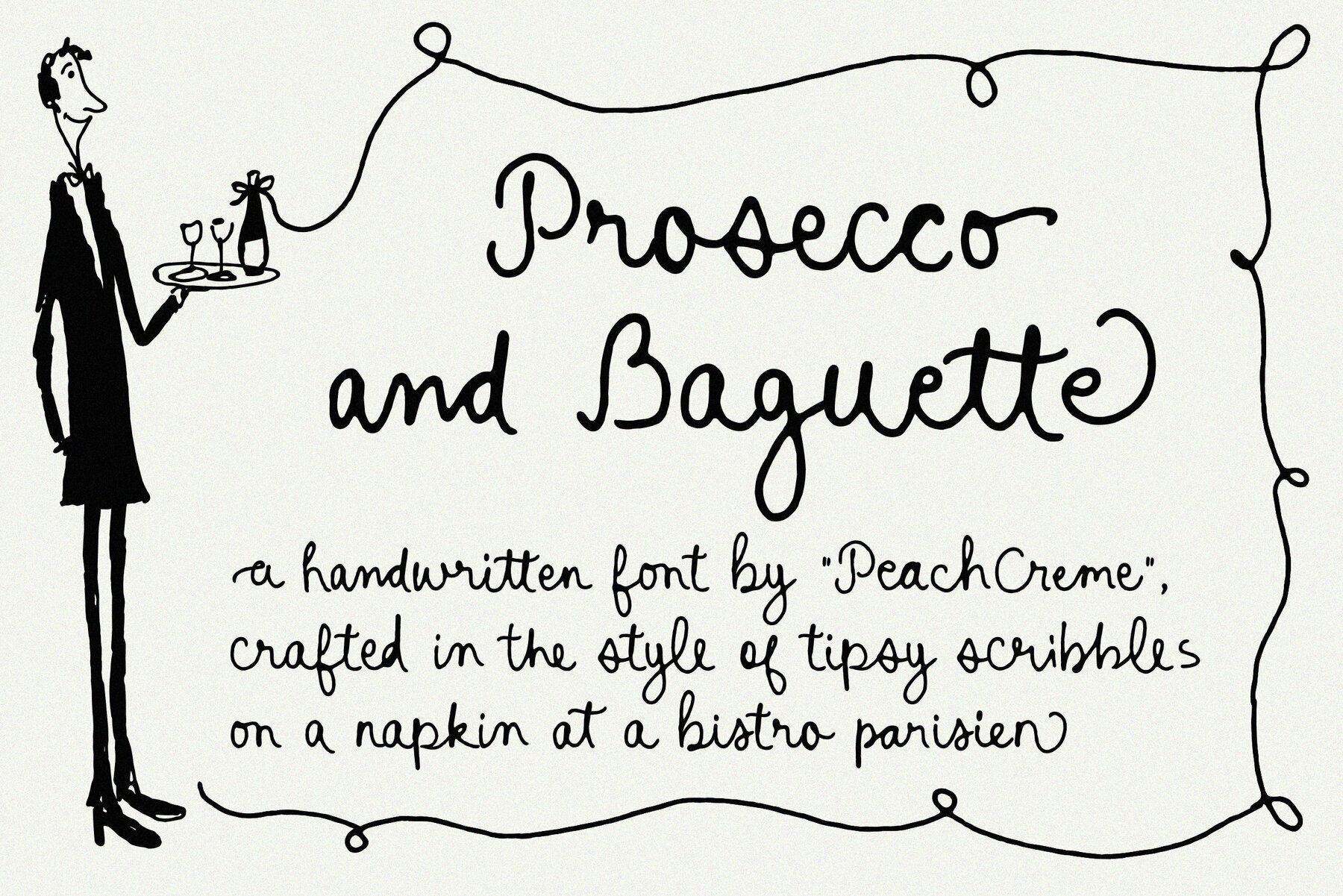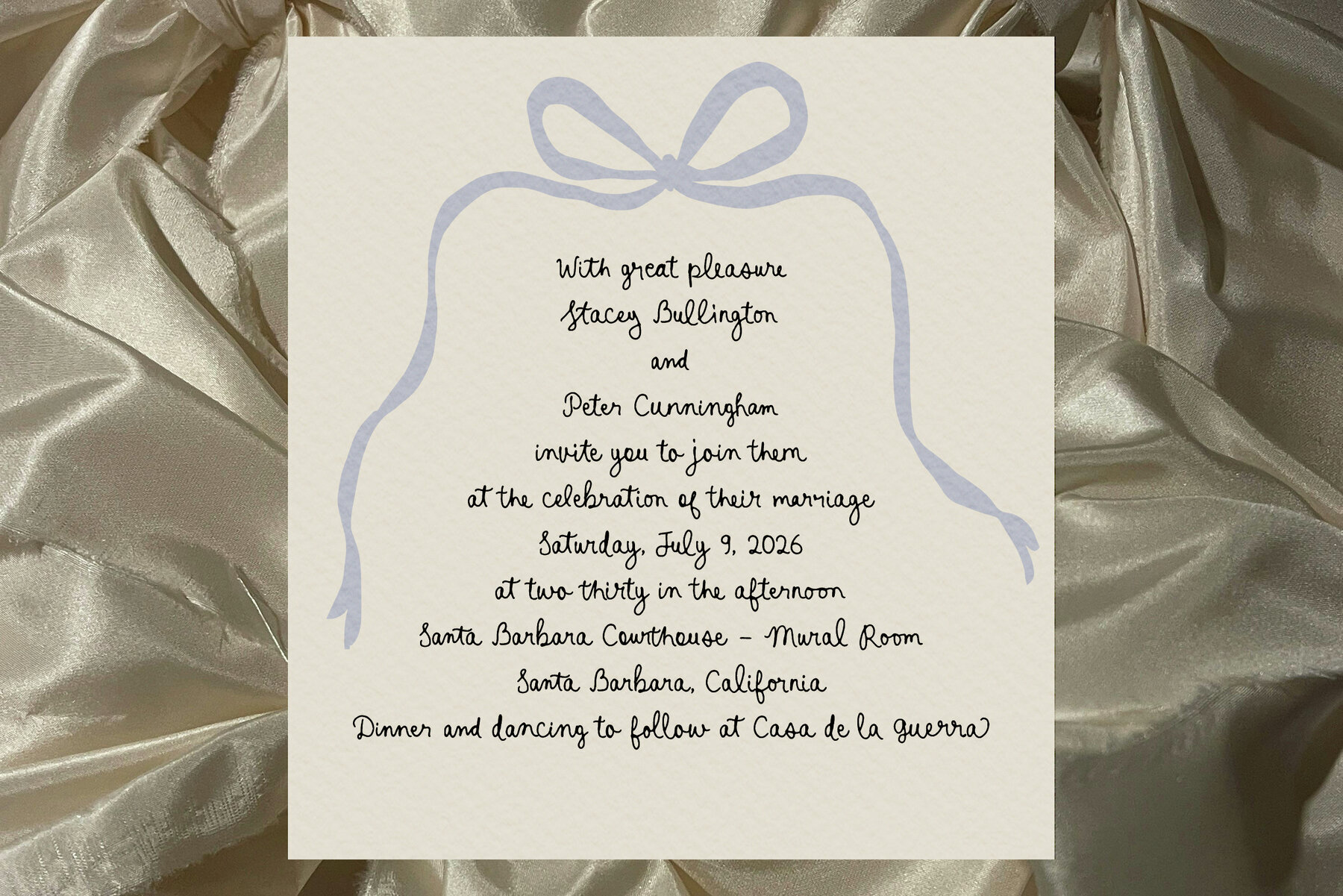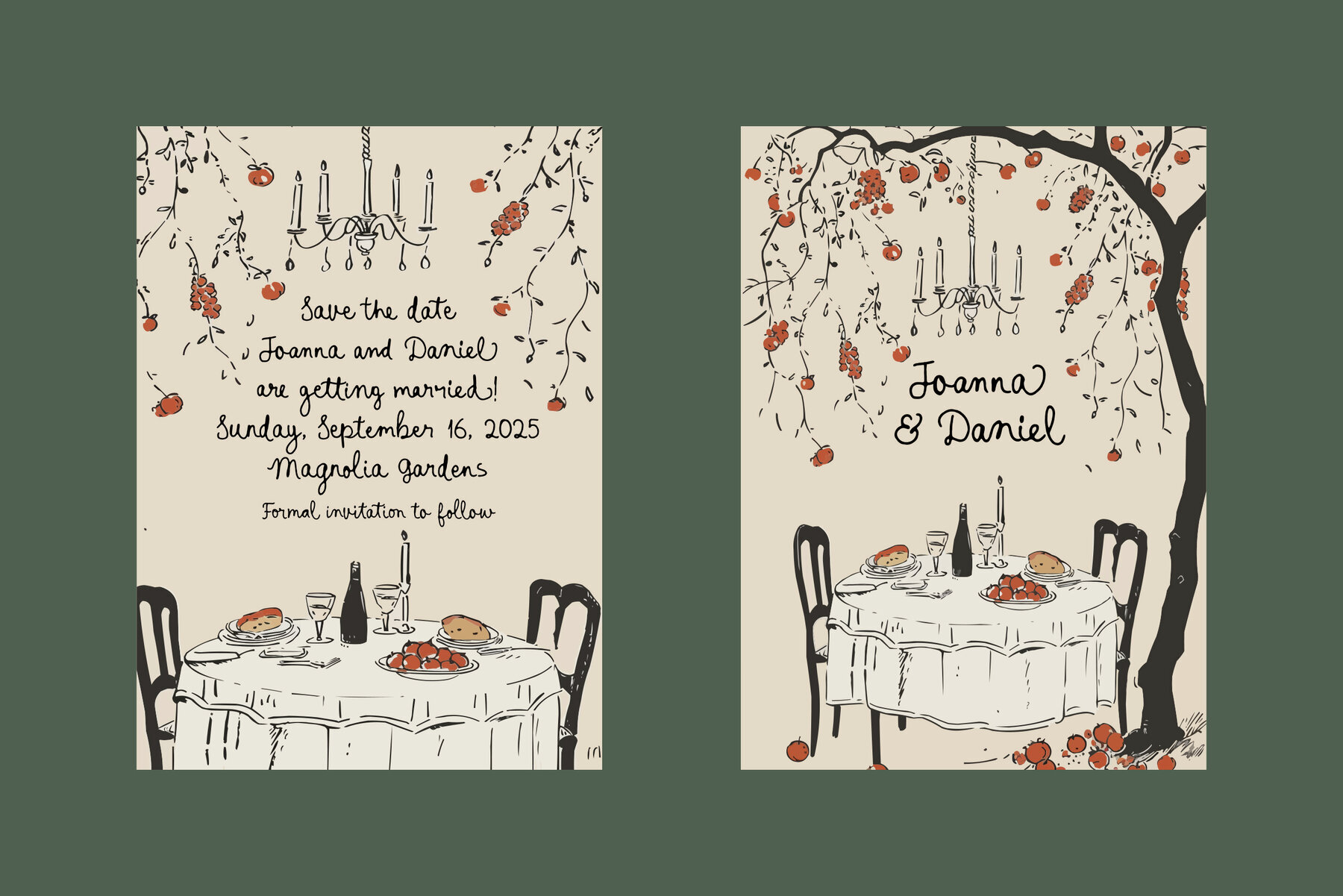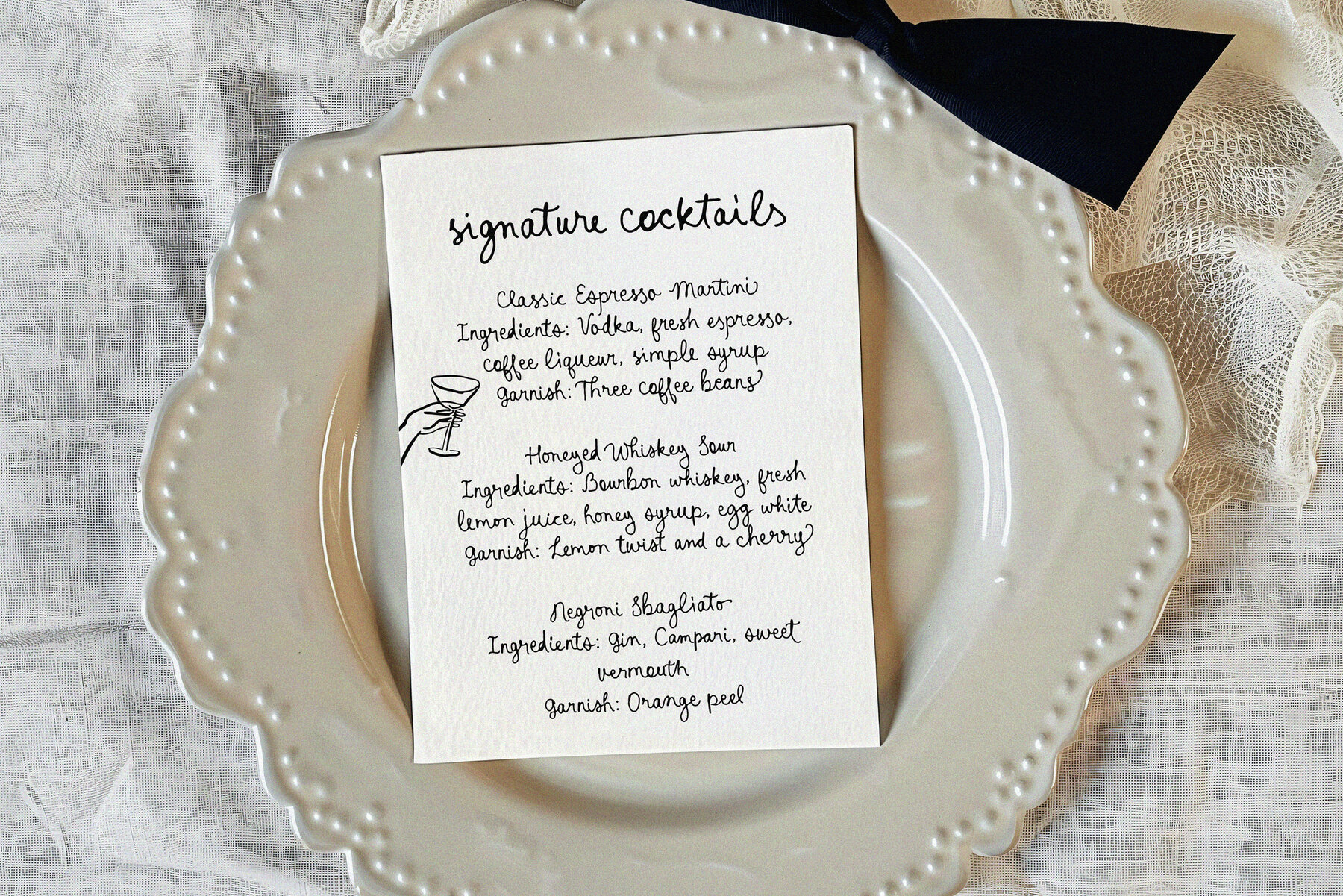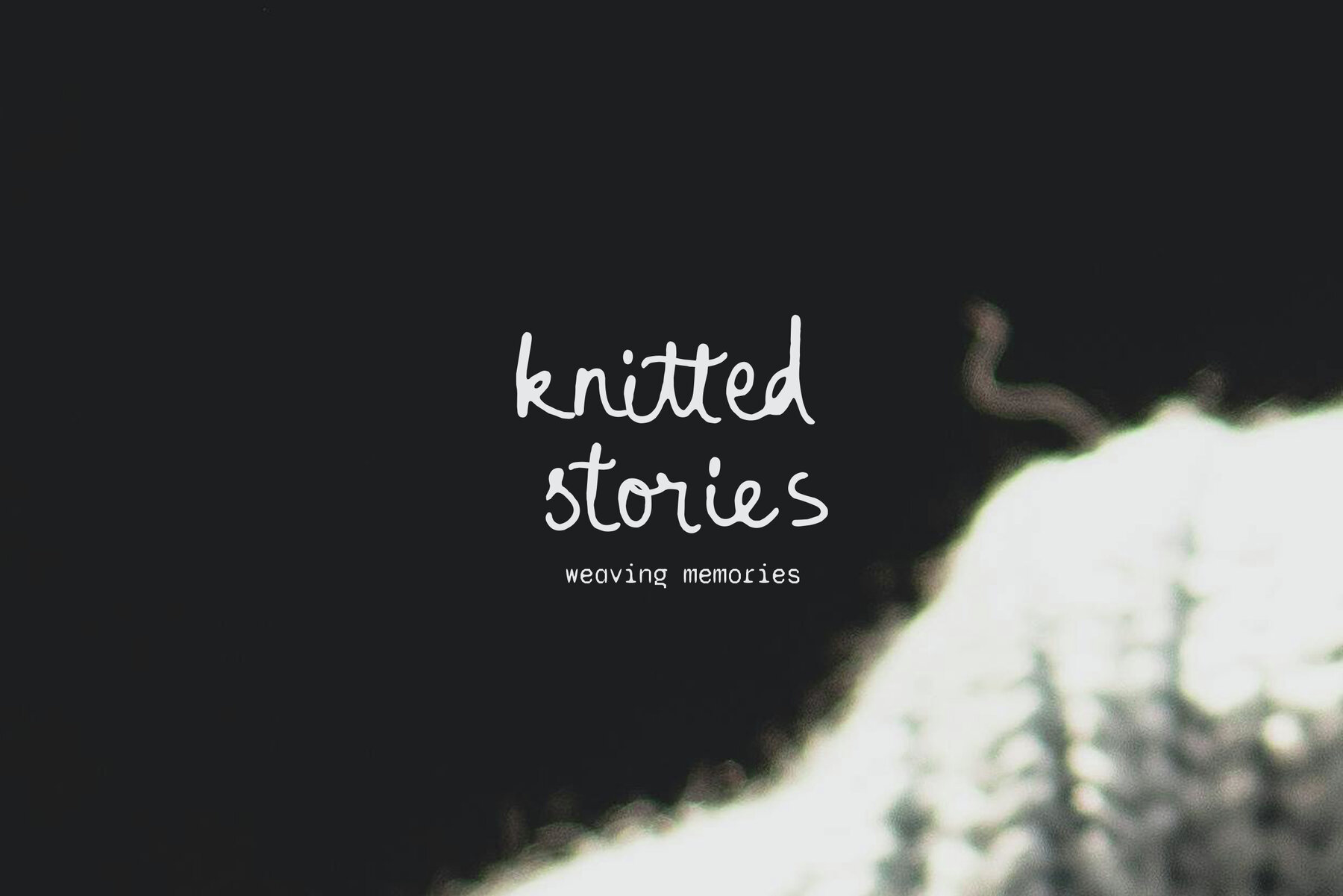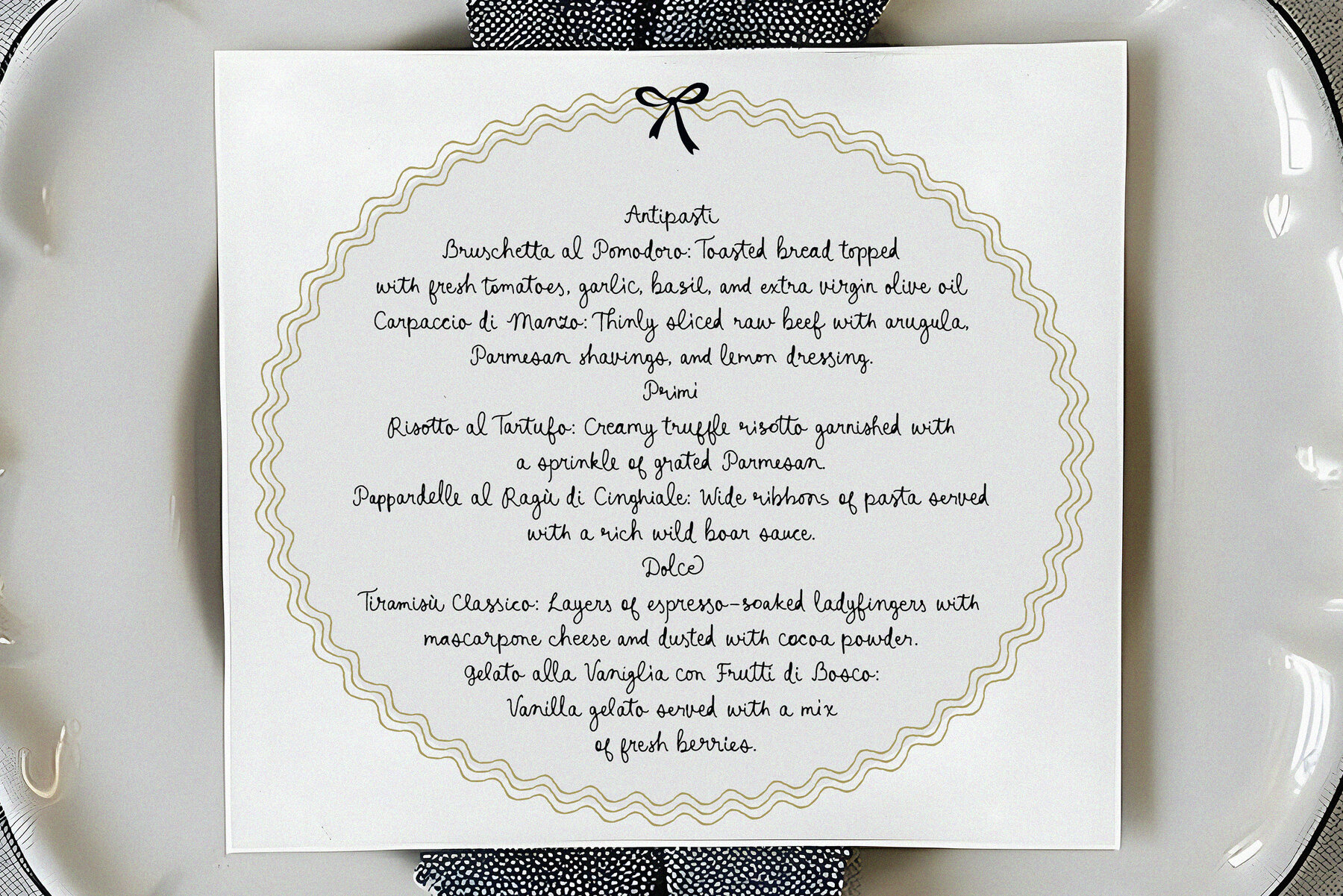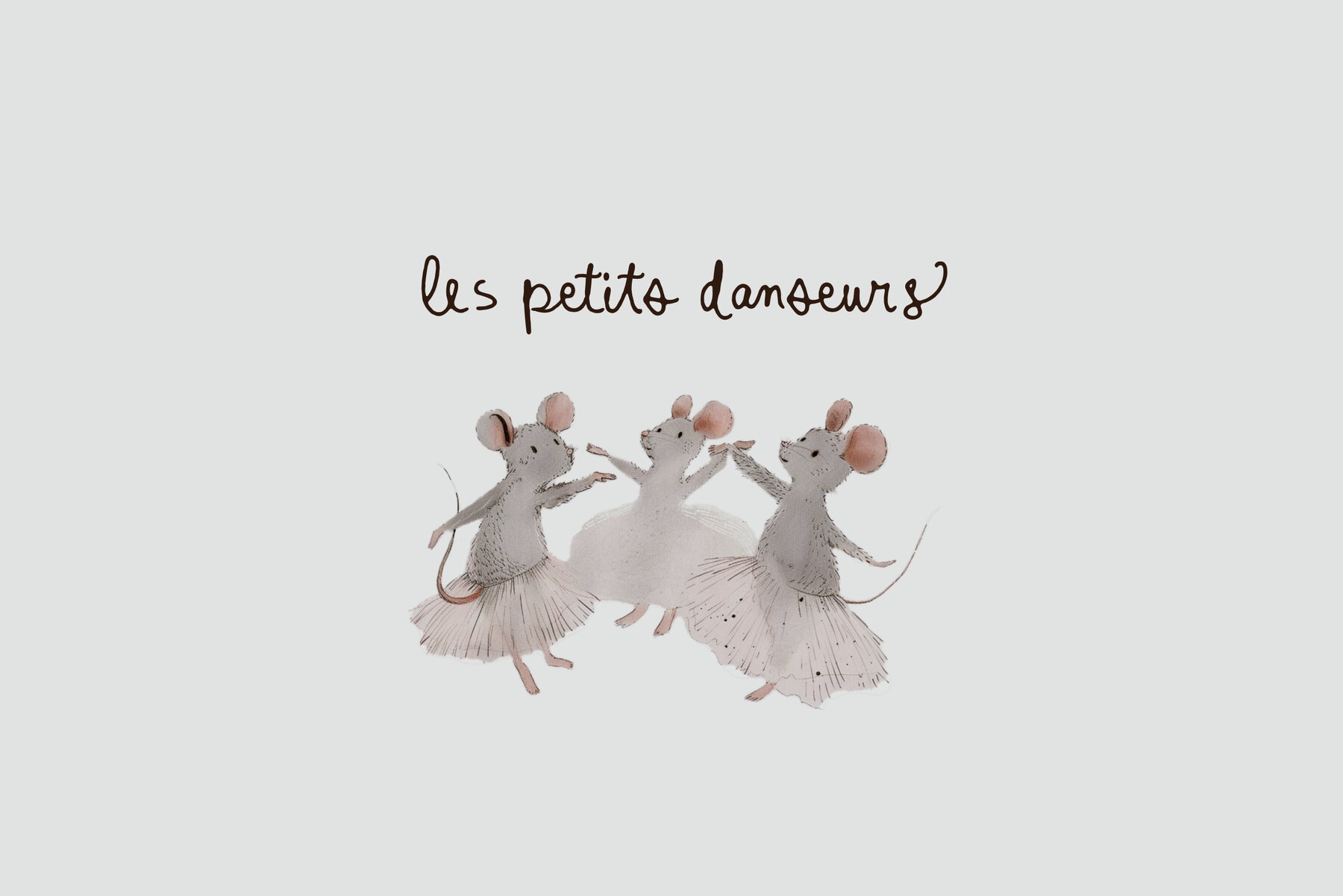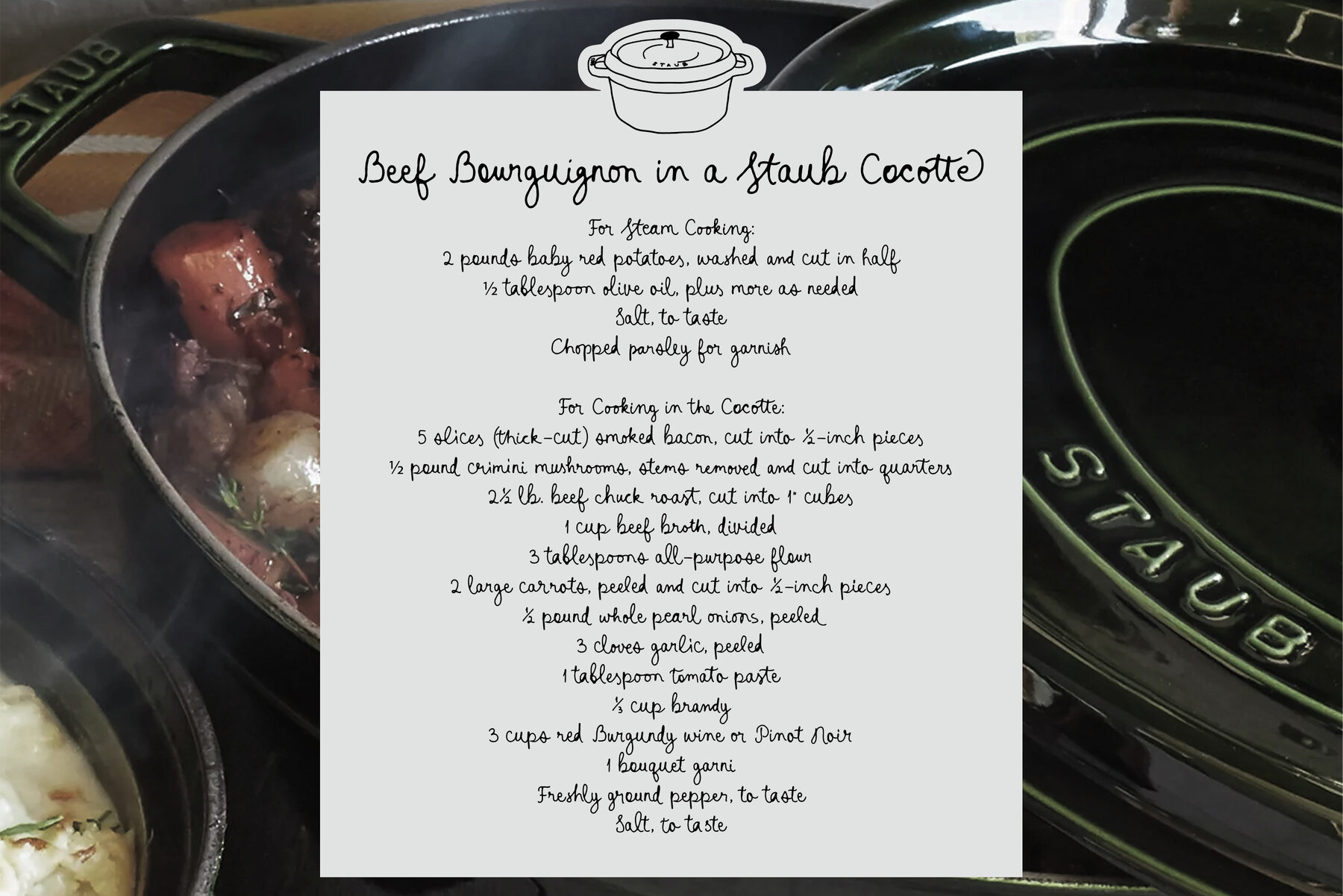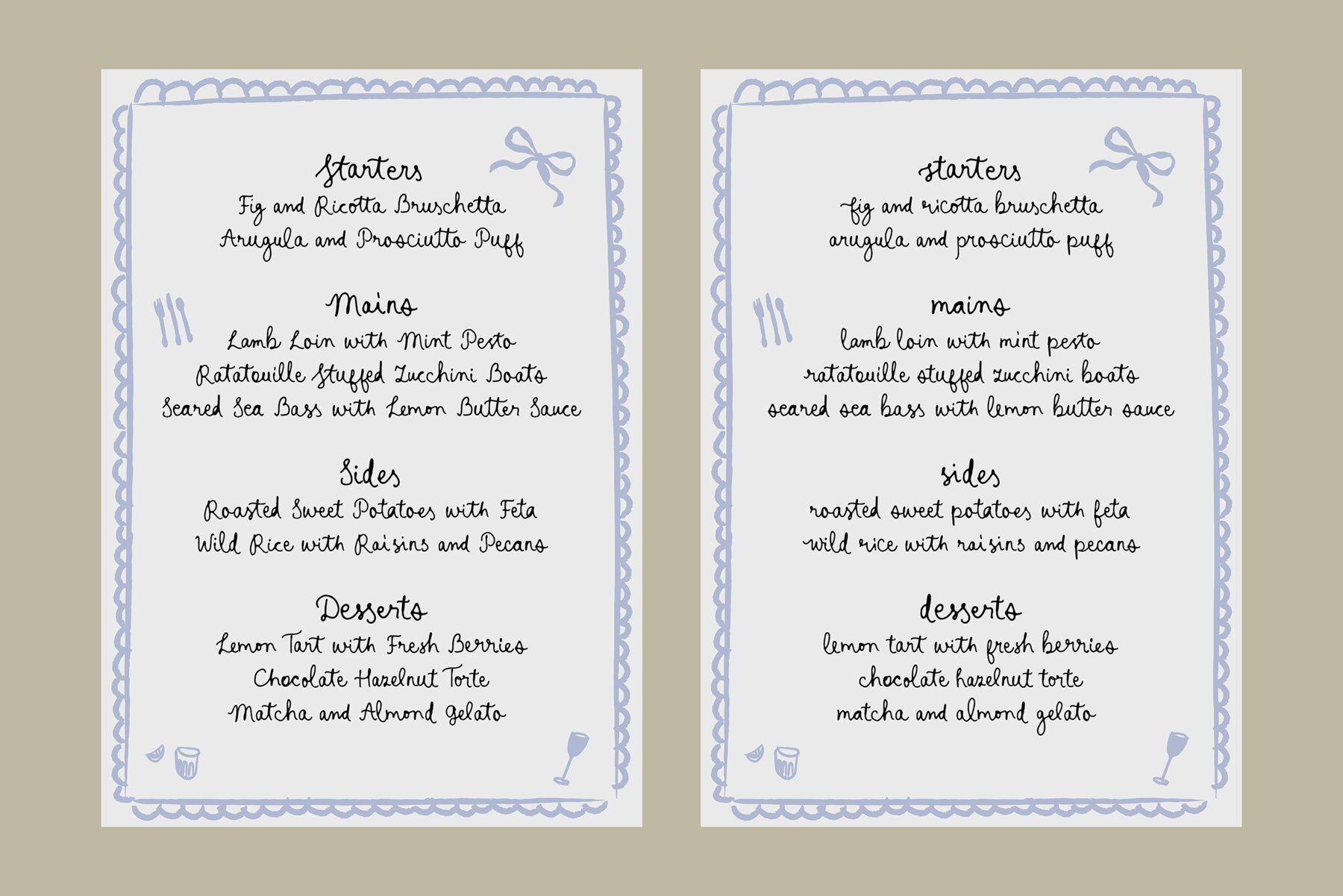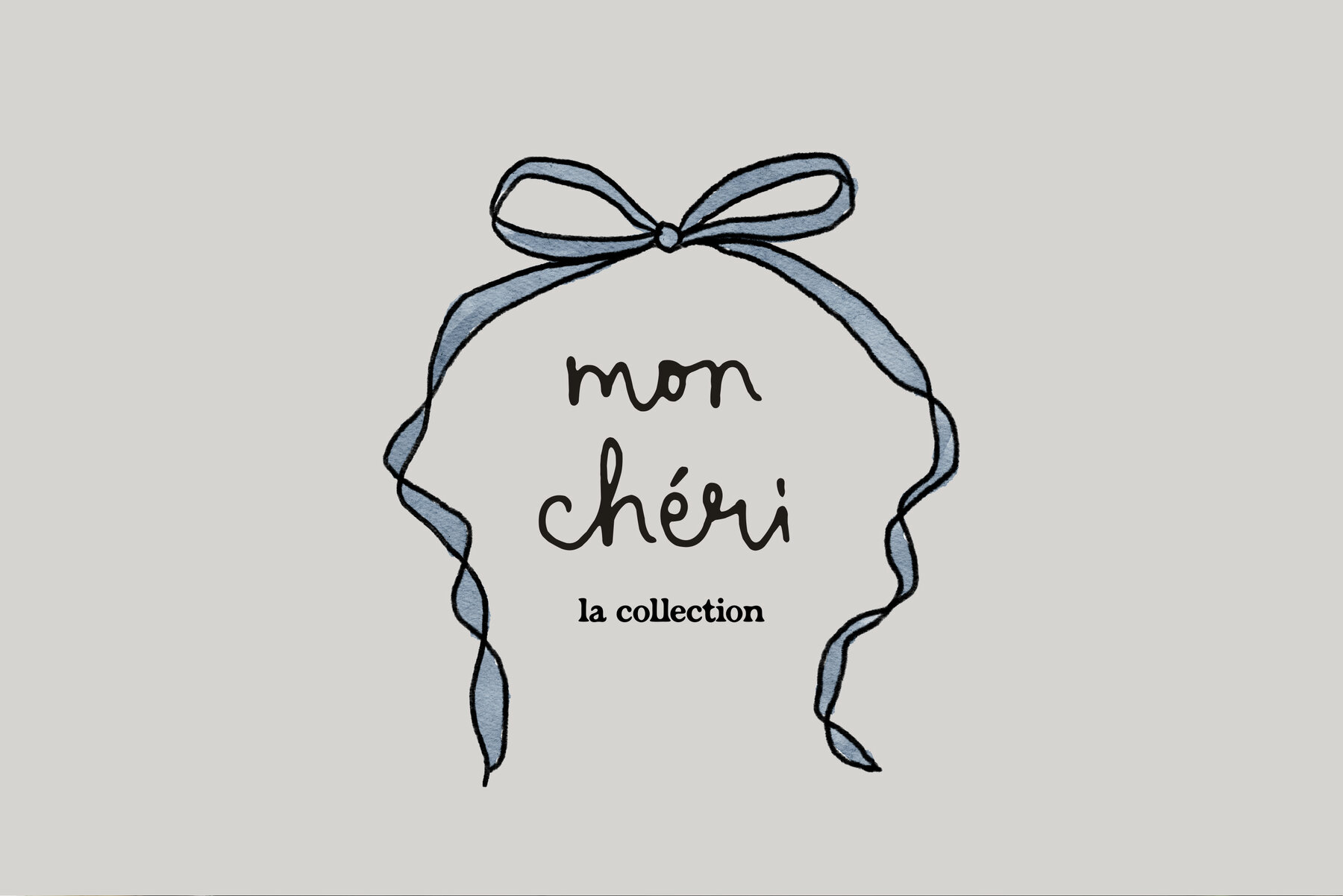
Prosecco and Baguette Font
Prosecco and Baguette
Prosecco and Baguette is a handwritten font that embodies the charm of casual scribbles. With 168 ligatures, it provides ample options for creating flowing, connected text. Each lowercase letter has unique beginning and ending alternatives, adding variety and a handcrafted feel to your designs. The distinctive swashes on each letter ensure the font maintains an organic, non-uniform appearance.
Ideal for projects requiring a spontaneous, informal touch, Prosecco and Baguette brings an authentic handwritten aesthetic. This font's versatile options make it perfect for adding character and warmth to your work, whether used in branding, packaging, or creative typography endeavors.